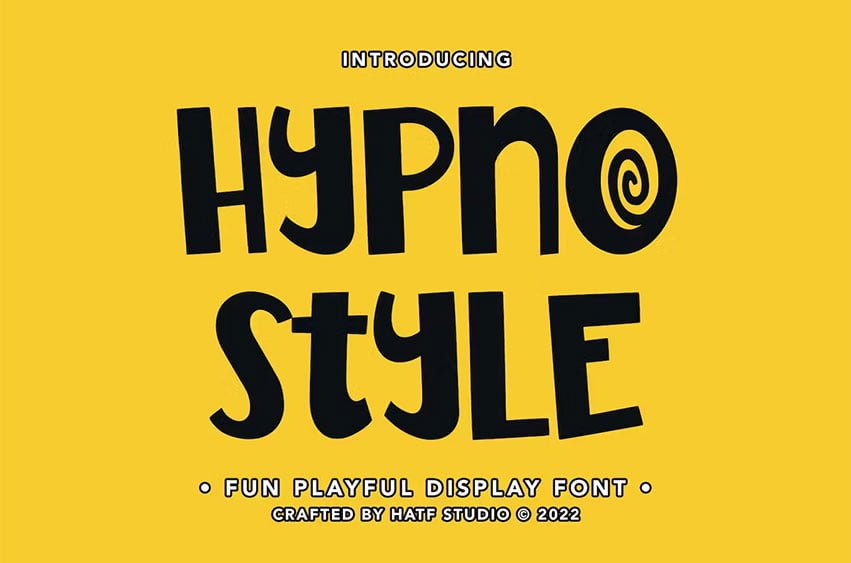
Hypno Style Font Is a playful display font with distinctive handwritten characters perfect for branding projects, logos, wedding designs, media posts, advertisements, product packaging, product designs, labels, photography, watermarks, invitations, stationery, and any project who need handwritten dishes.